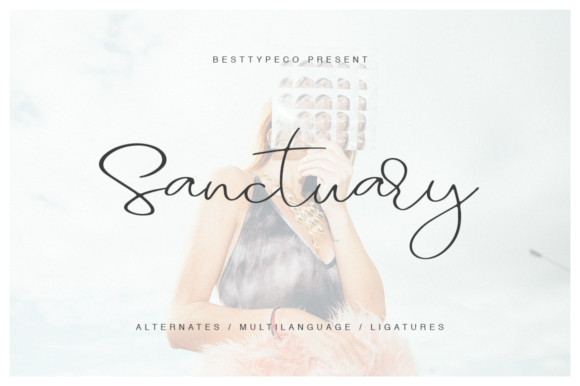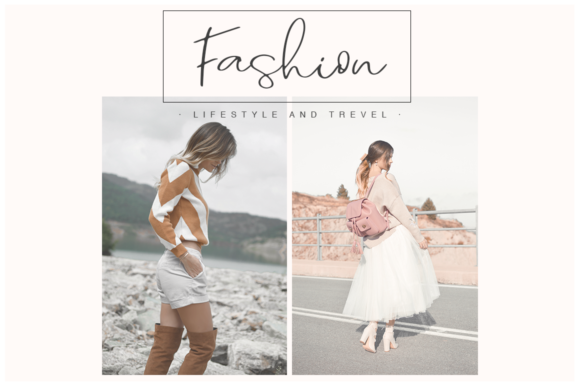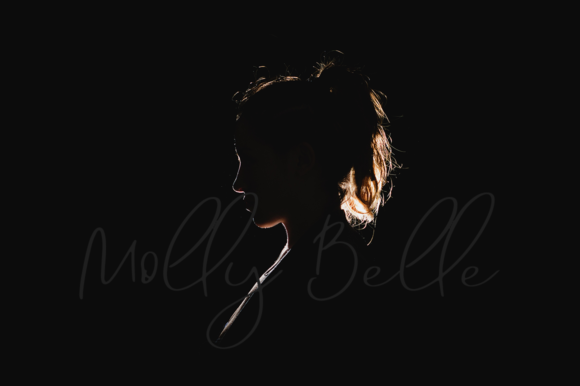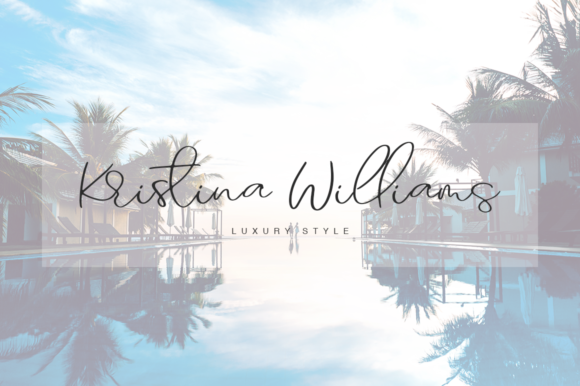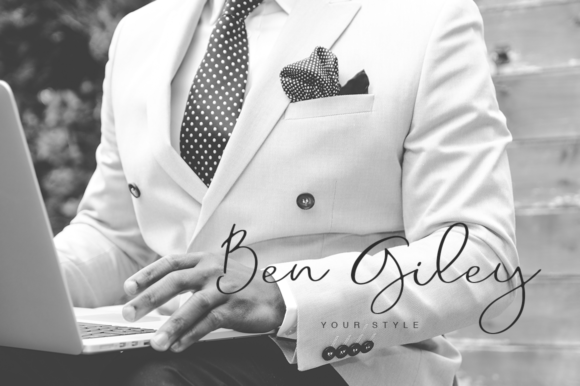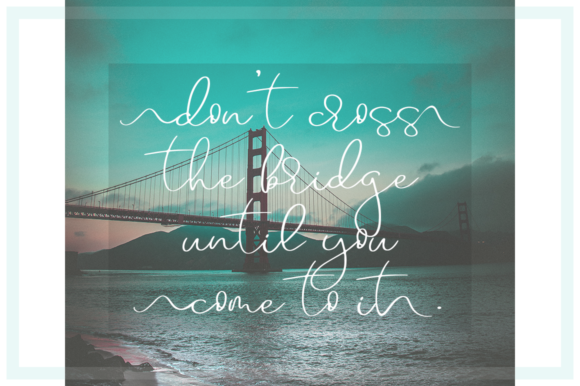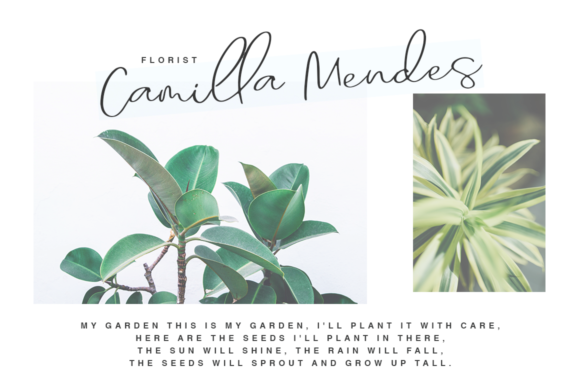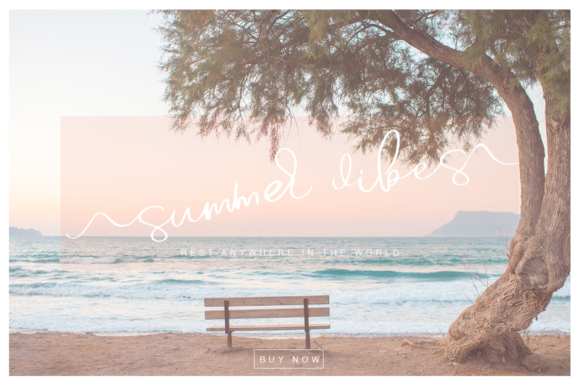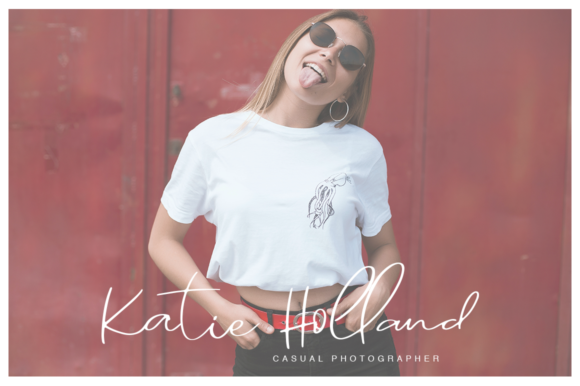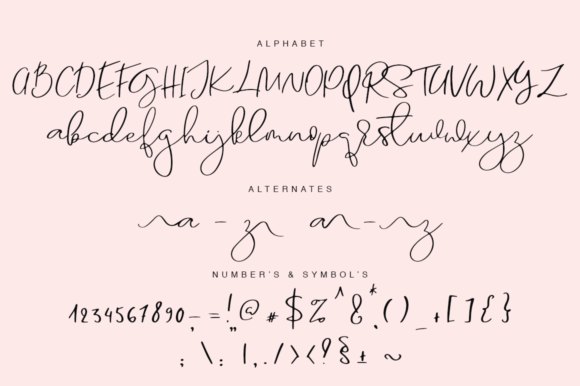
Sanctuary Font
About Sanctuary Font
The Sanctuary is a new, fresh, handmade calligraphy font. It’s has a elegant style and is very suitable for greeting cards, branding materials, business cards, quotes, posters, and more!